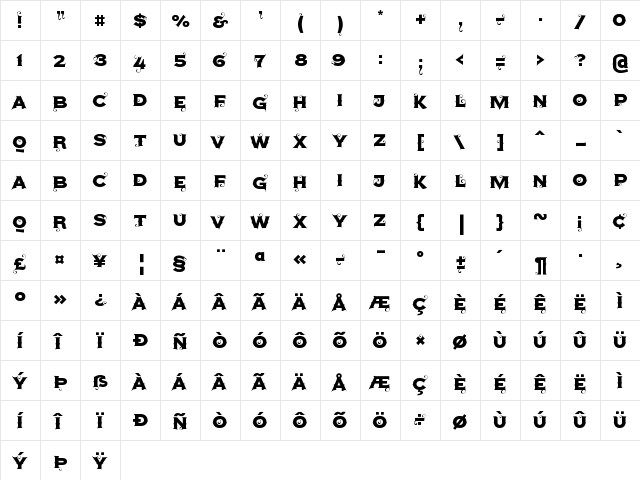
Agreloy Medium
| Designer | gluk |
Design Context for Agreloy Typeface
Agreloy is a composed and adaptable typeface that performs quietly and consistently across a wide range of design contexts.